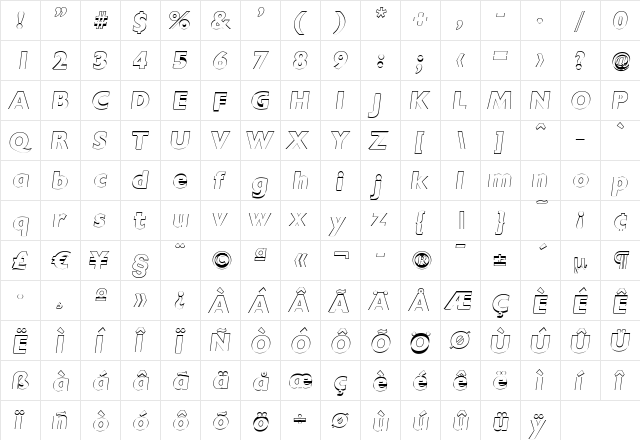
DavidBeckerOutline-ExtraBold Italic Font Preview
Design Context for DavidBeckerOutline-ExtraBold Typeface
DavidBeckerOutline-ExtraBold is built around its visual character rather than neutral utility — its distinctive forms are designed to make an impression at display sizes. The slanted form adds forward momentum and visual energy. The heavy weight commands attention and anchors typographic hierarchies.
Font Pairing: Pair with a clean neutral sans-serif for body copy to let DavidBeckerOutline-ExtraBold's character lead without overwhelming the composition.
Pro Tip: Treat DavidBeckerOutline-ExtraBold as the centrepiece of your typographic hierarchy. One strong heading set in a decorative face can carry an entire layout.